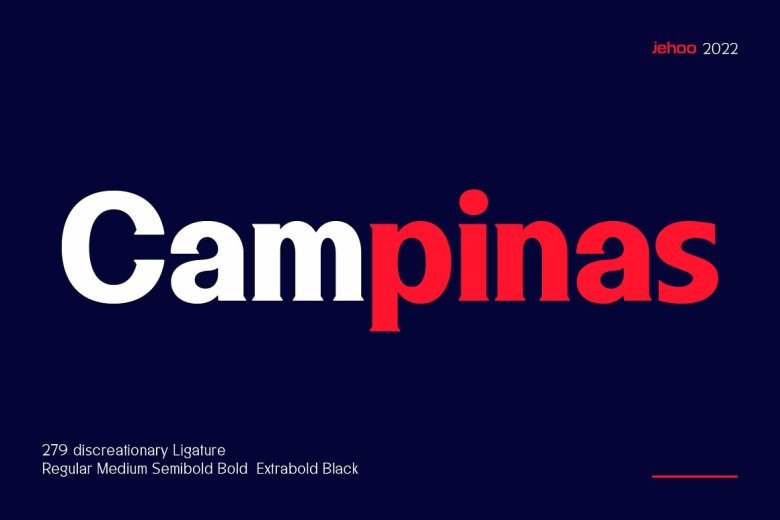
Campinas Serif Font is a unique and modern family of serif typefaces designed by Jehoo Creative with a minimal serif structure and moderate contrast. This typeface finds ample application including posters, logos, branding materials, magazines, album covers, websites, apparel, social media posts and other design needs demanding an engaging script with versatility.
The minimal yet expressive forms allow words to flow naturally on the page or screen in an inviting and legible manner suitable for both text-heavy and imagery-led layouts.
Campinas Serif Font